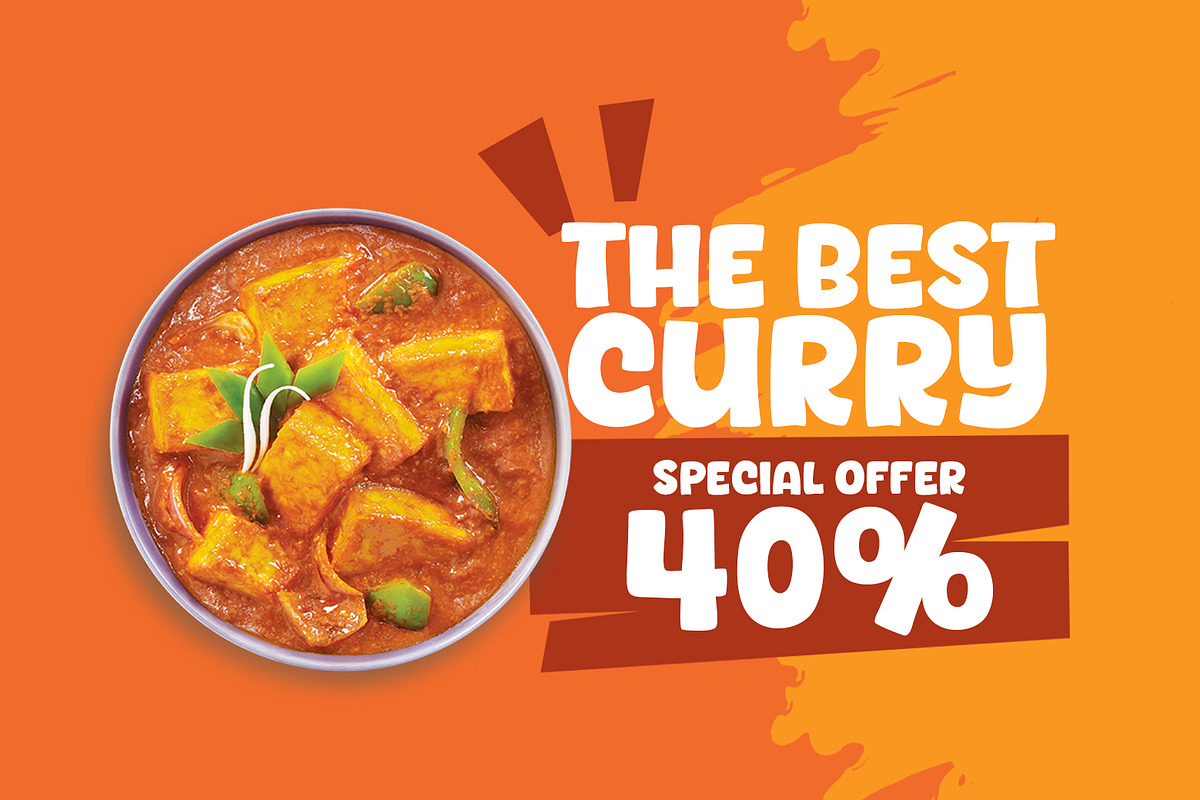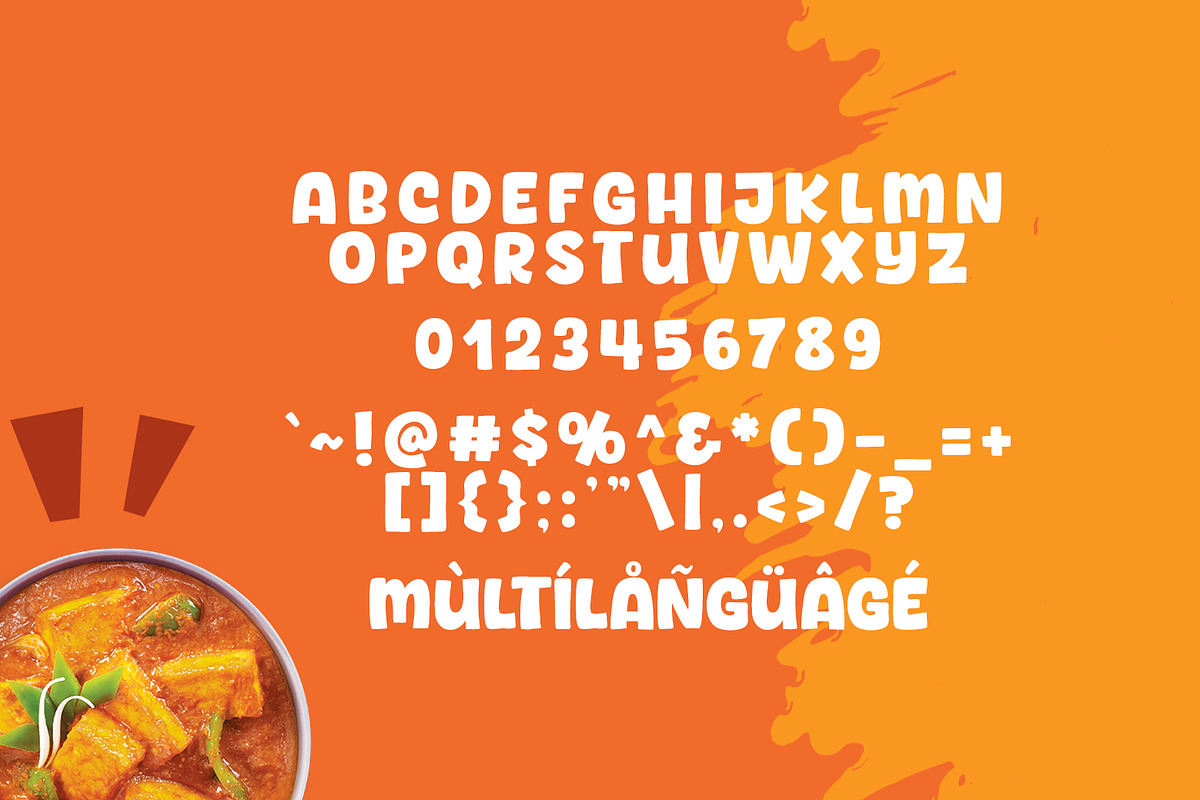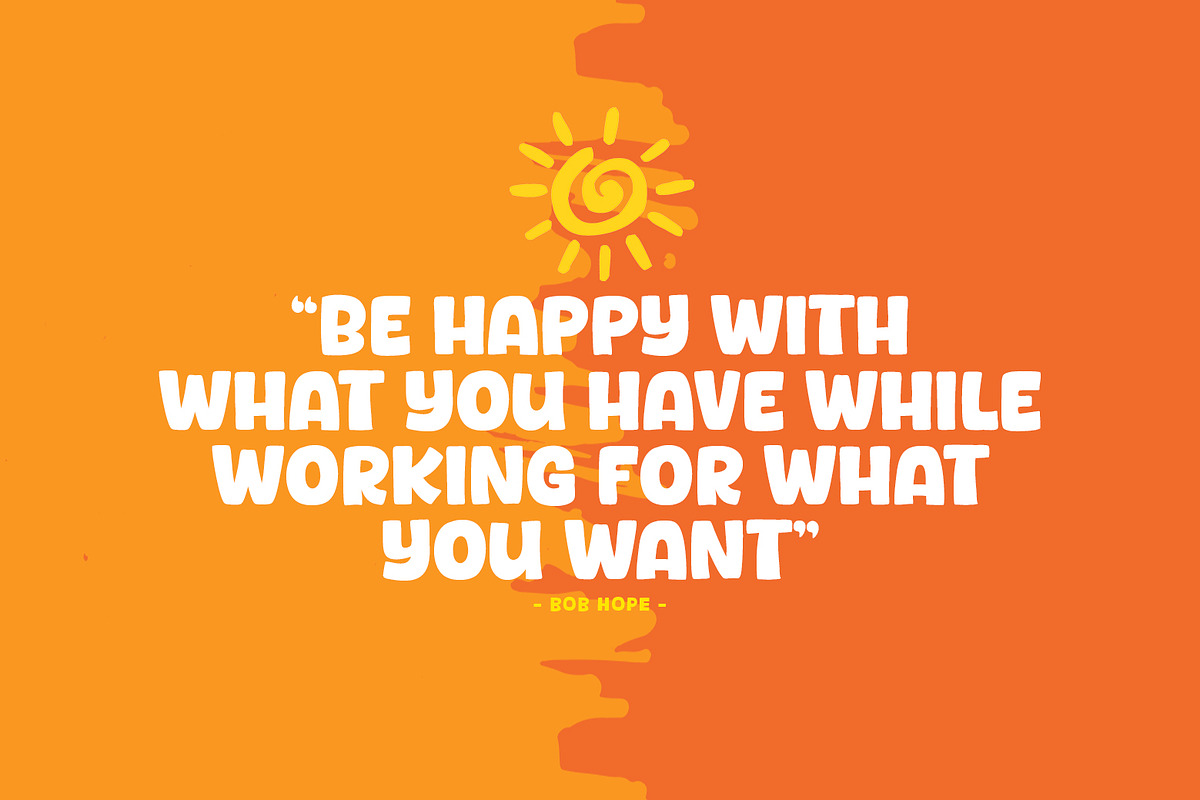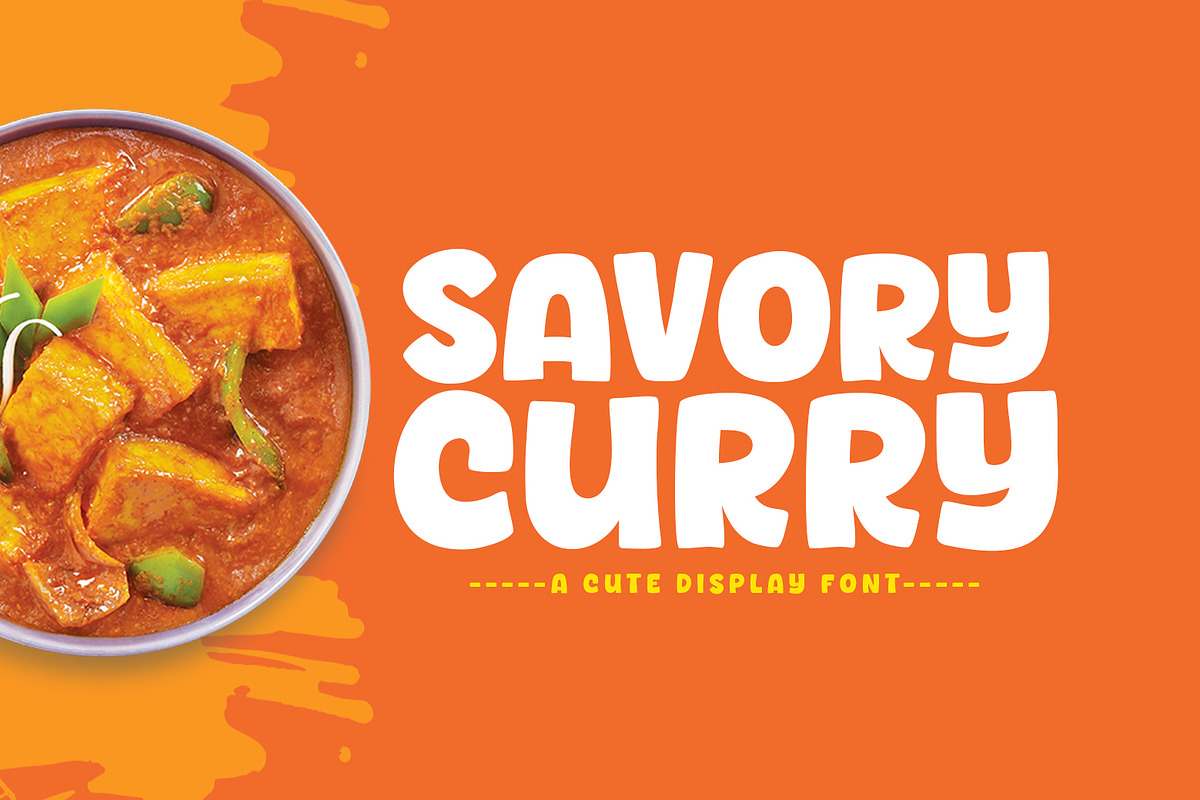
Savory Curry
Introducing, Savory Curry font a fun display typeface with cheerful theme for your fun project. Savory Curry font suitable for logo, branding, greeting card, poster and any design that you create.